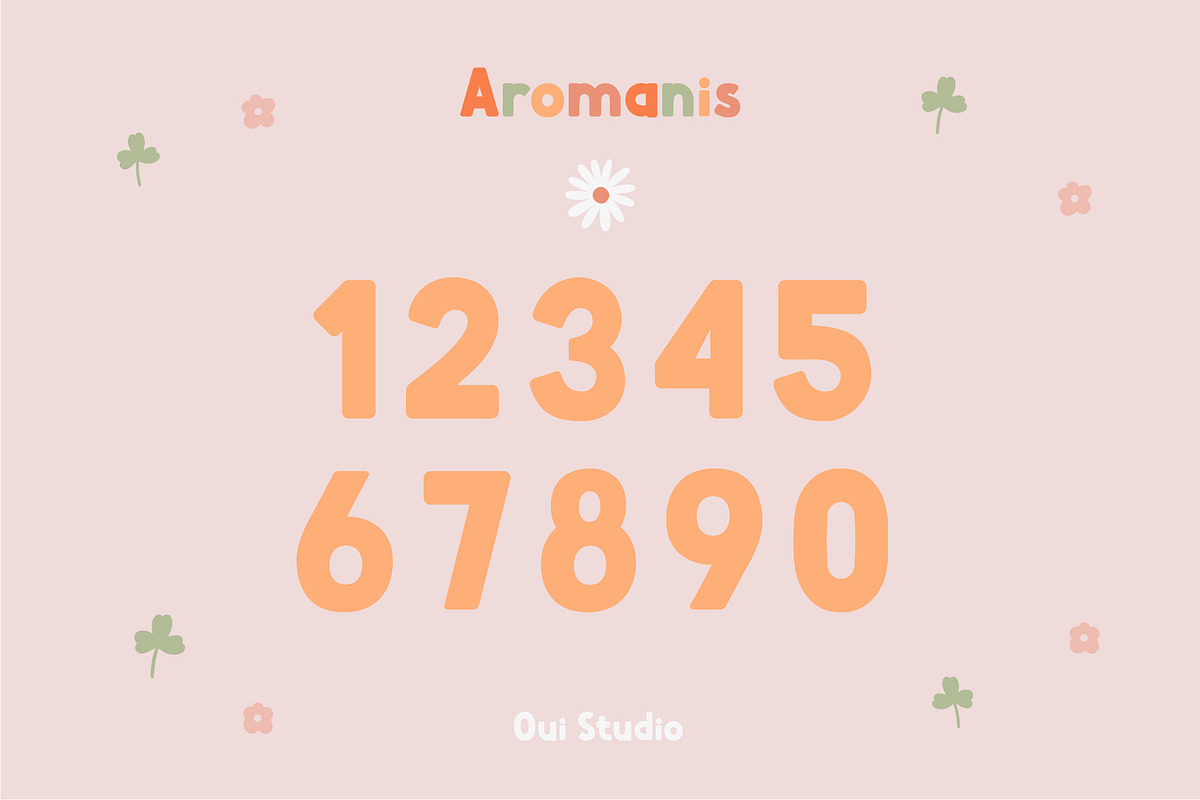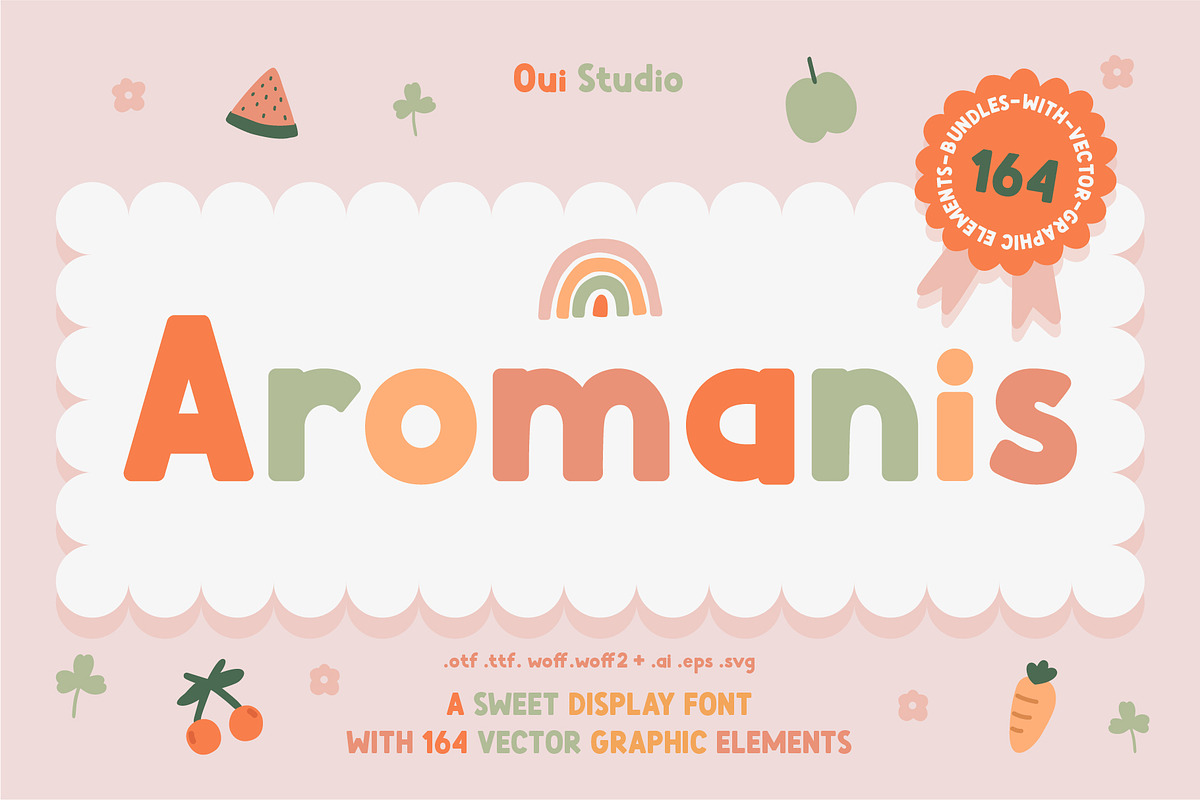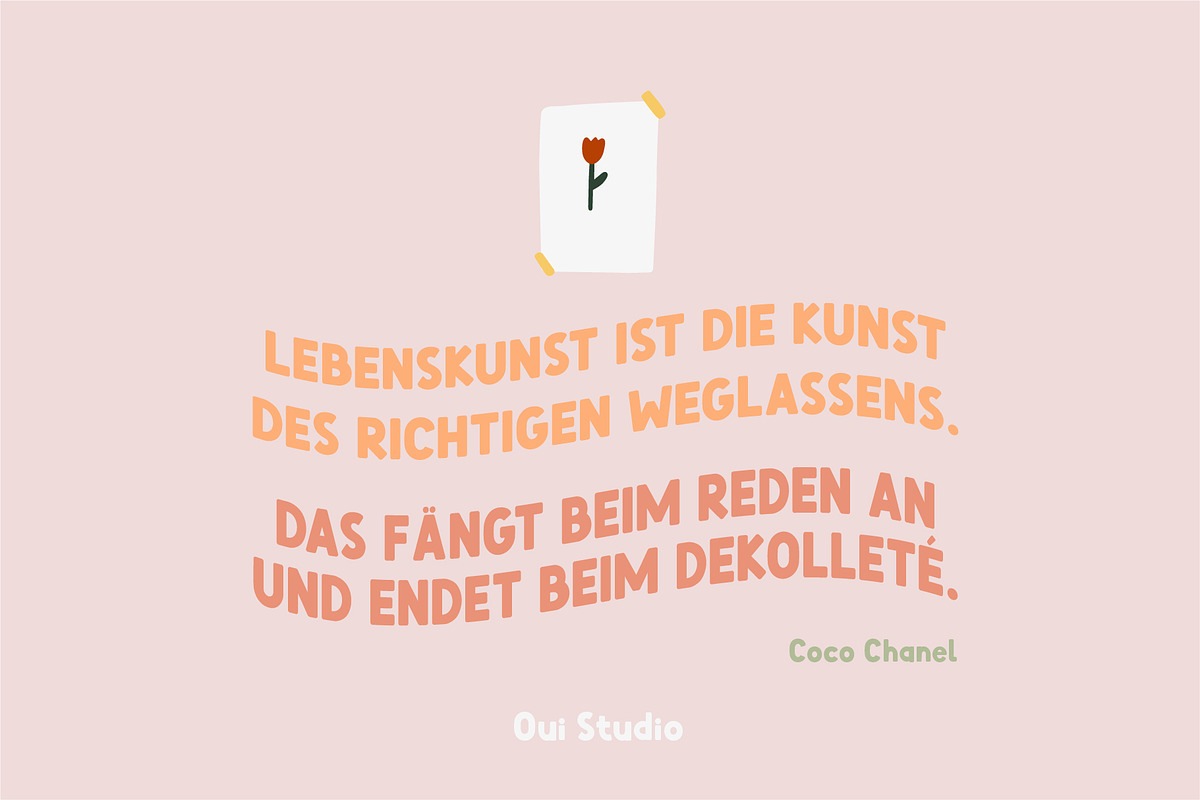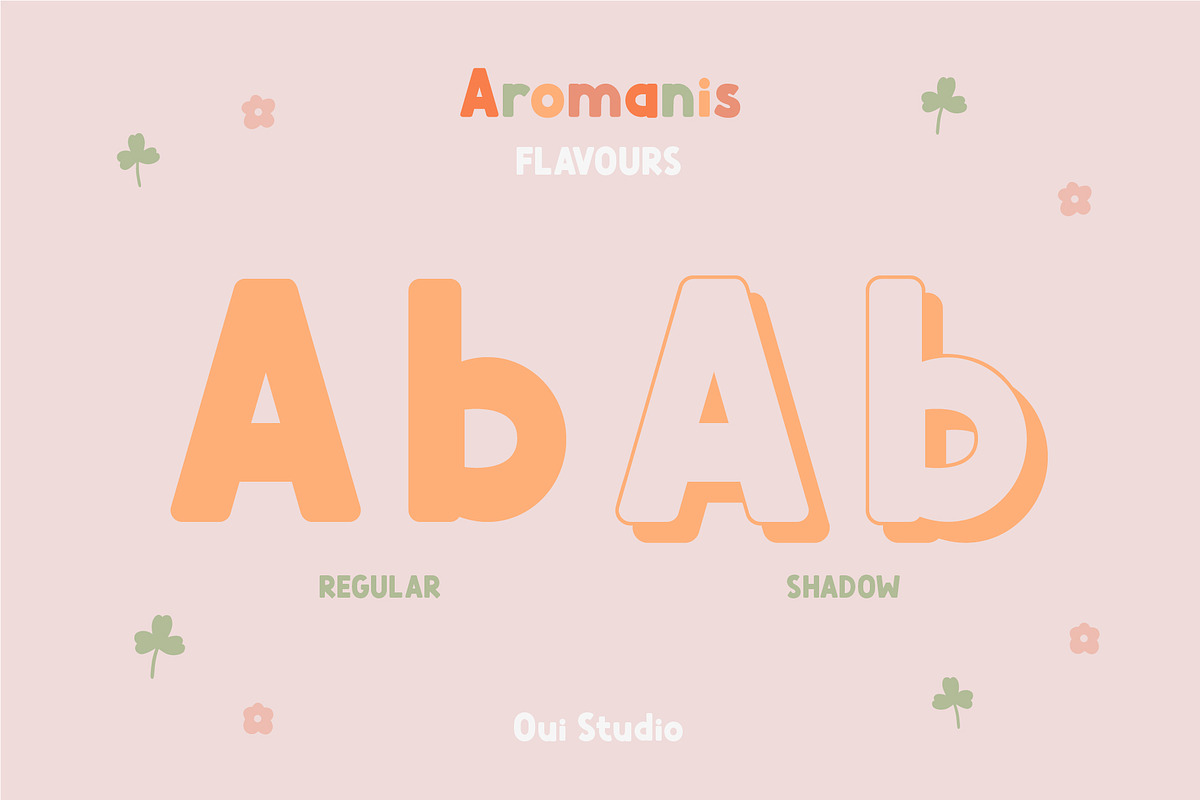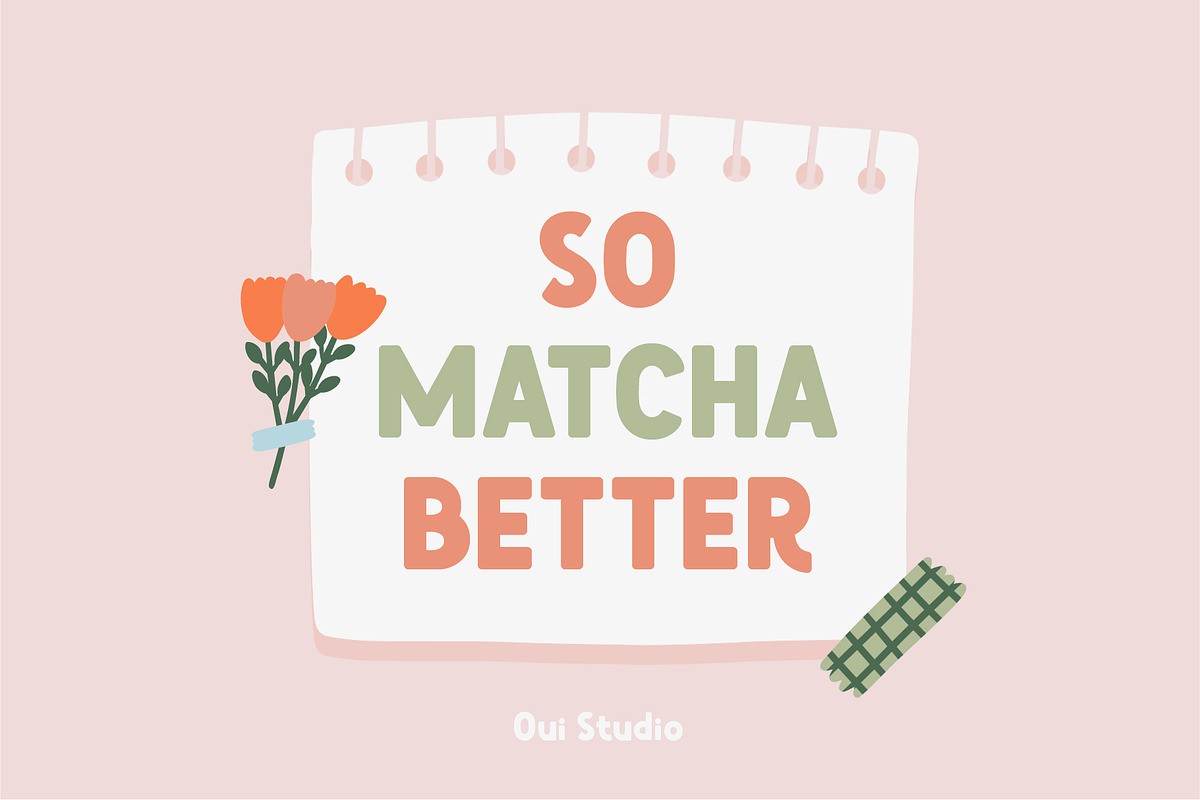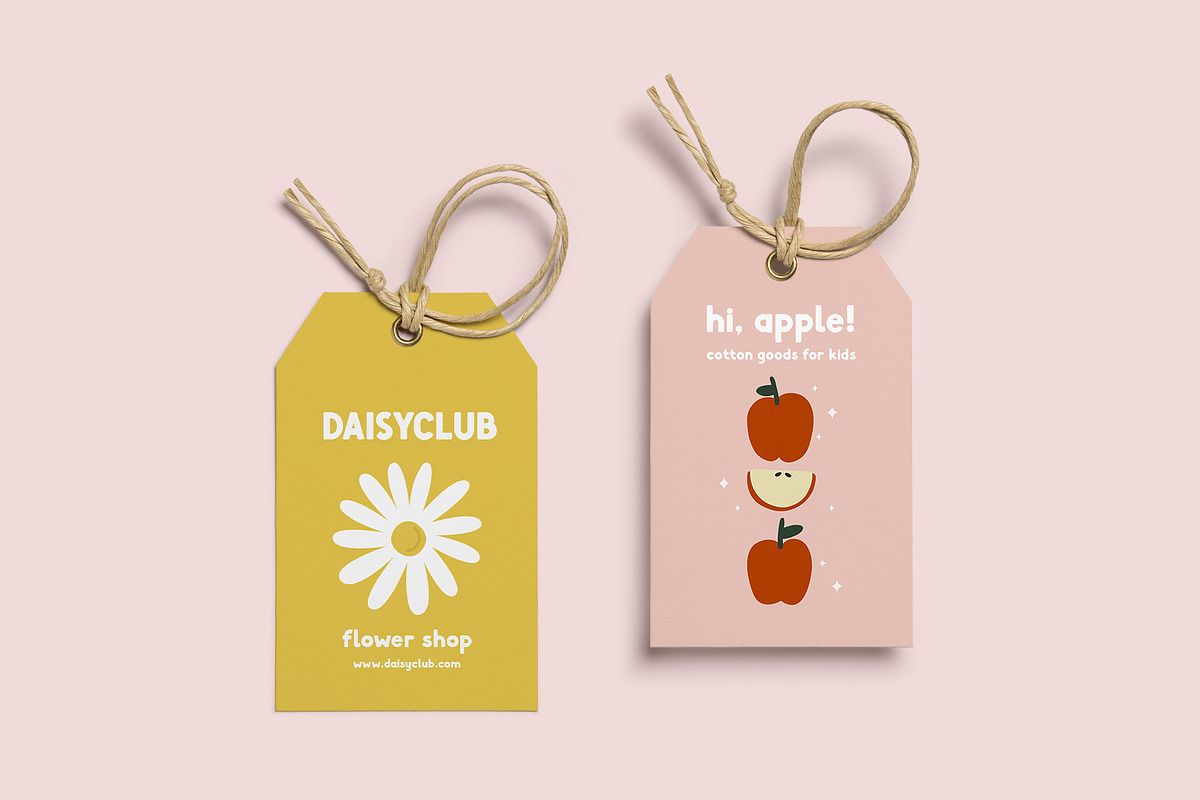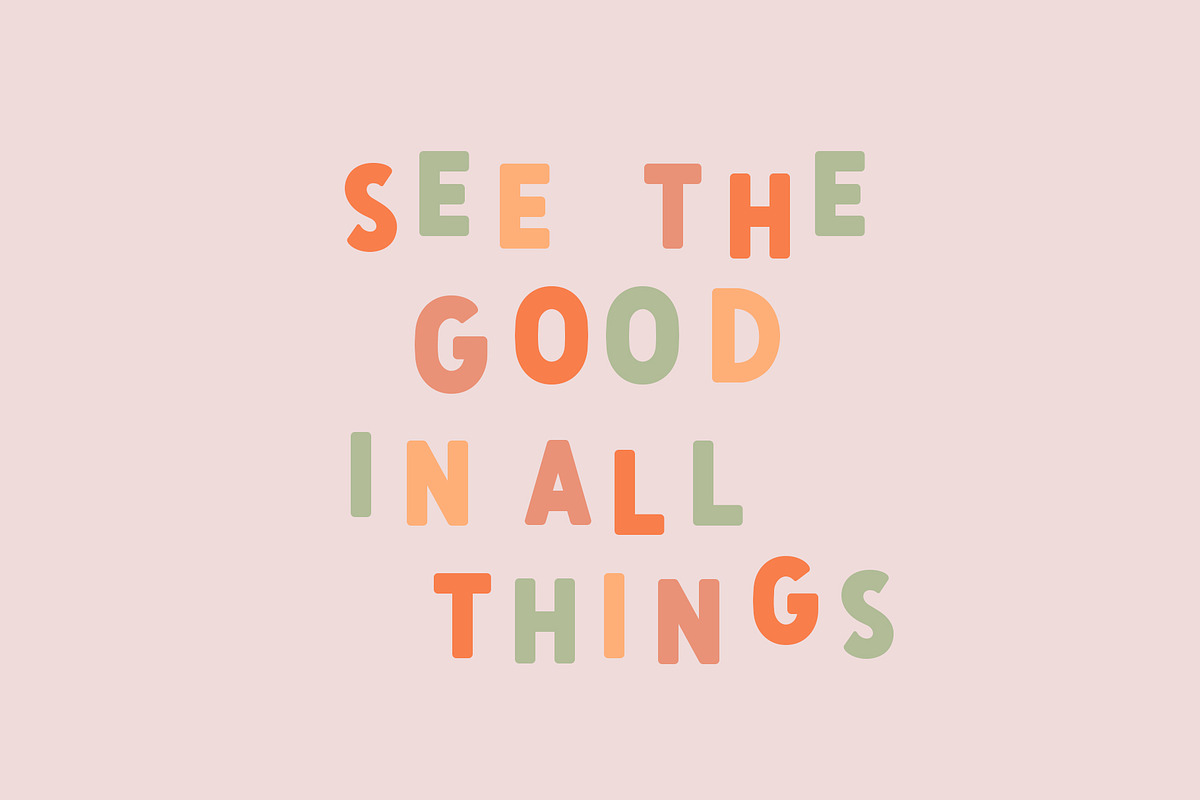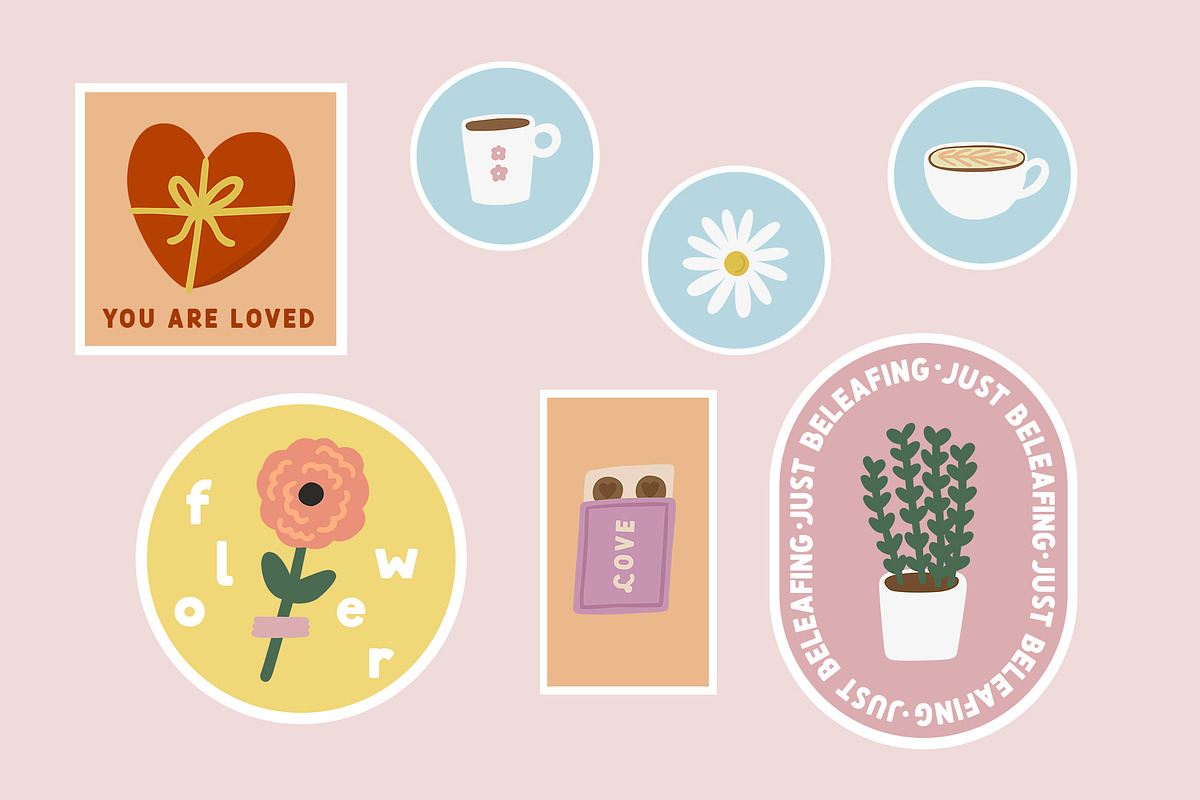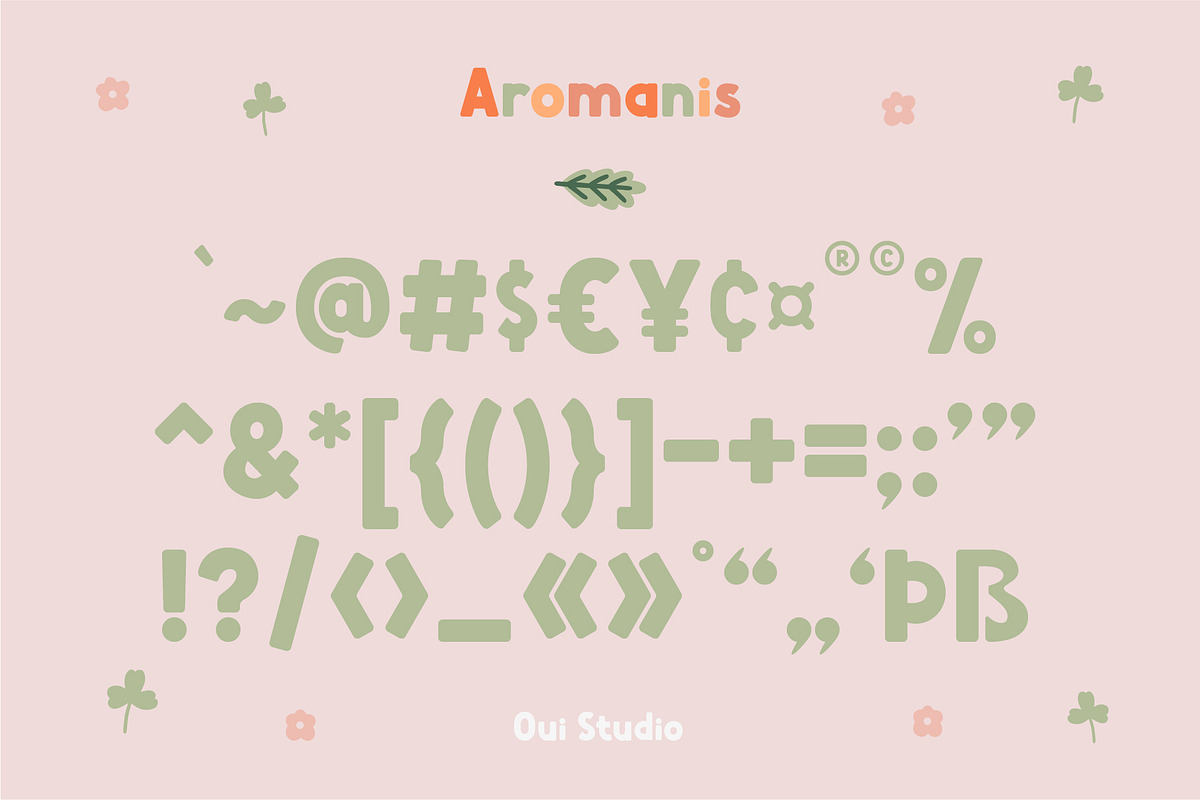
Aromanis Sweet Font + Bonus
Hello friends! Wanna something sweet? The 'Aromanis' font is coming, a playful and sweet font in two variants: Regular and Shadow, with BONUS 164 super cute vector graphic elements.
Aromanis font comes with a complete package of glyphs and some of the alternative glyphs to add an extra to your word. It's perfect for branding, logo, invitation, greeting card, packaging, graphic tee, poster, digital or print stuff that you need to make a playful, fun, neat, and chic effect in your work. Need something cute? you can add some graphic elements to your work.